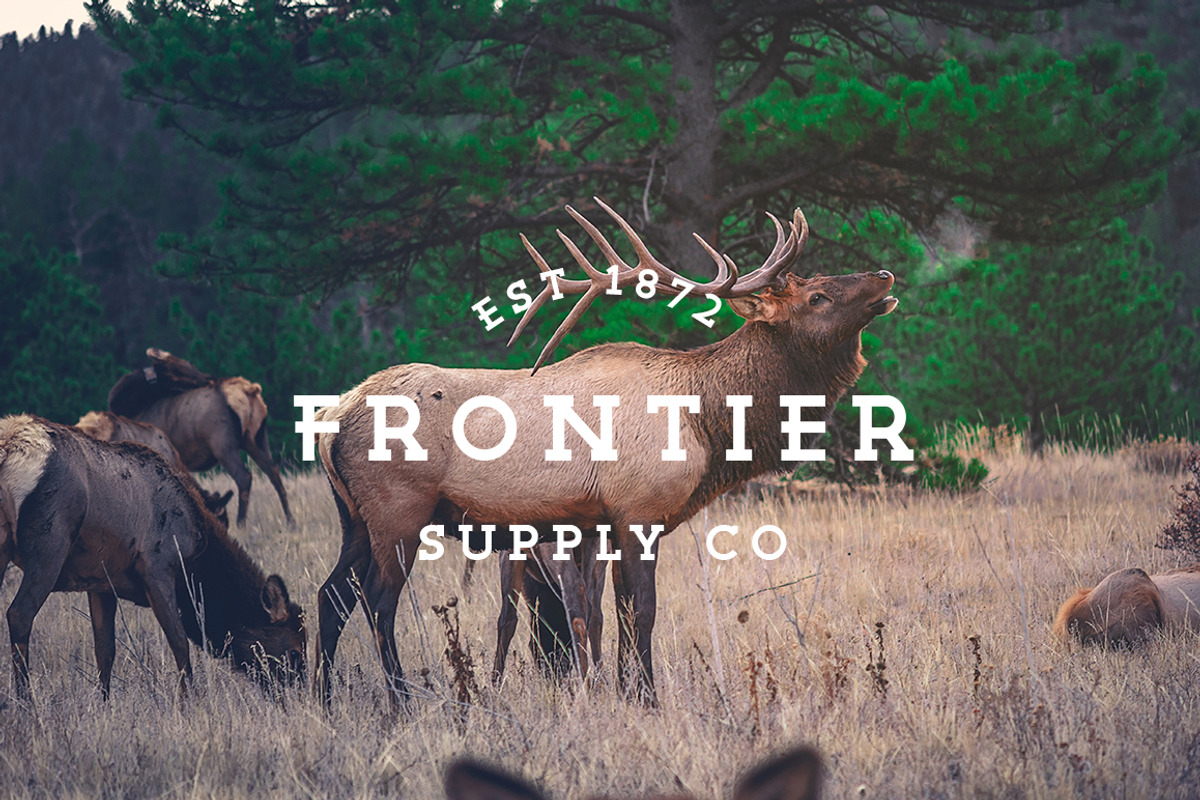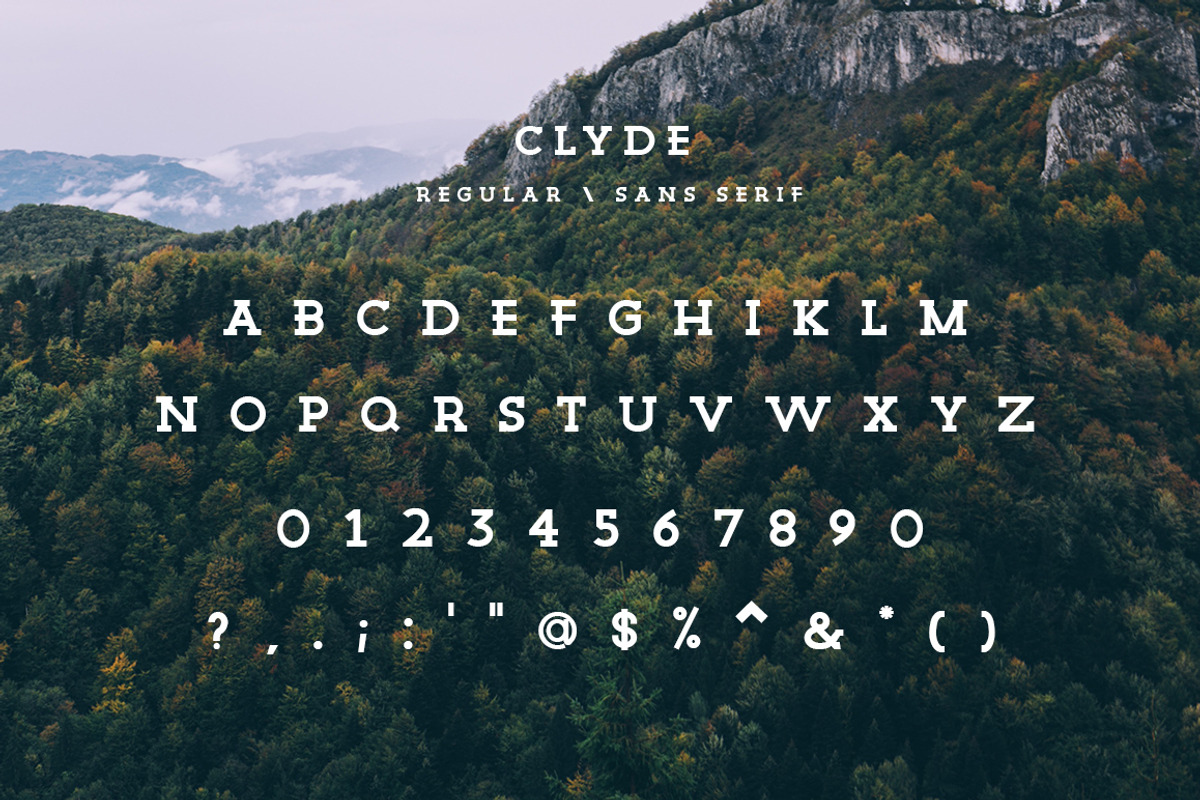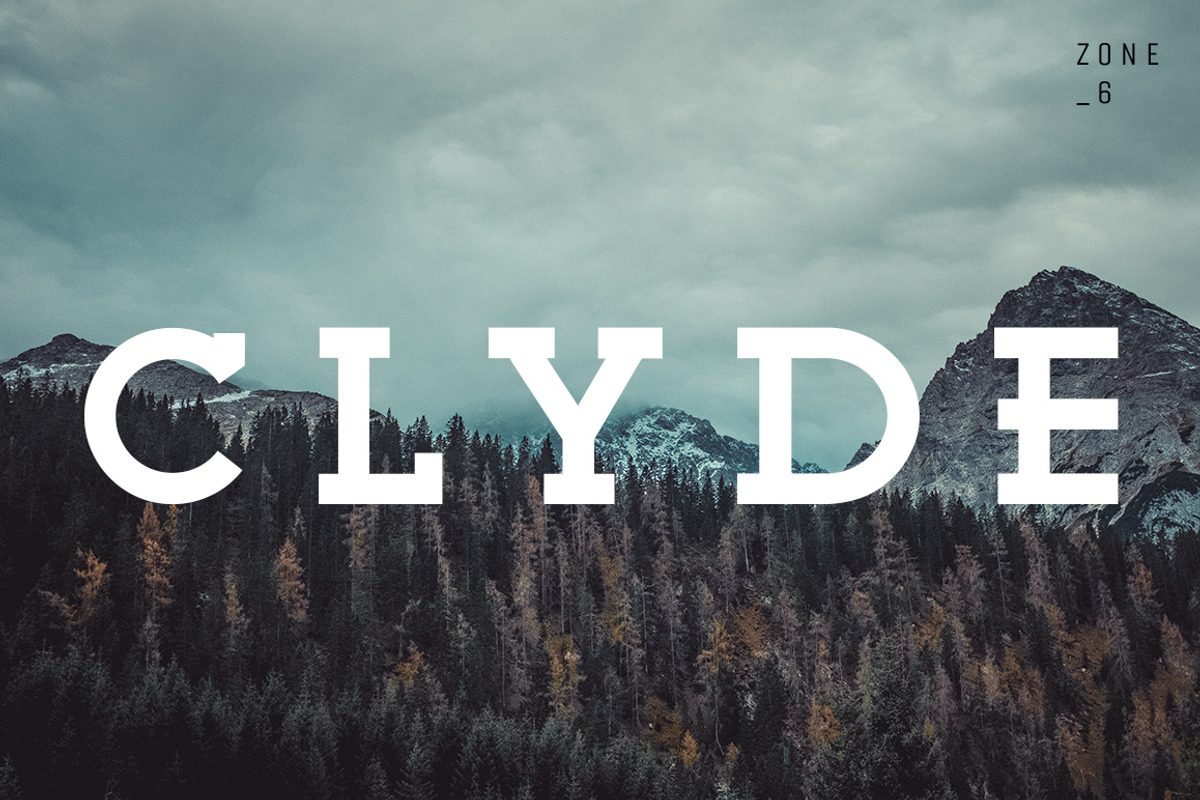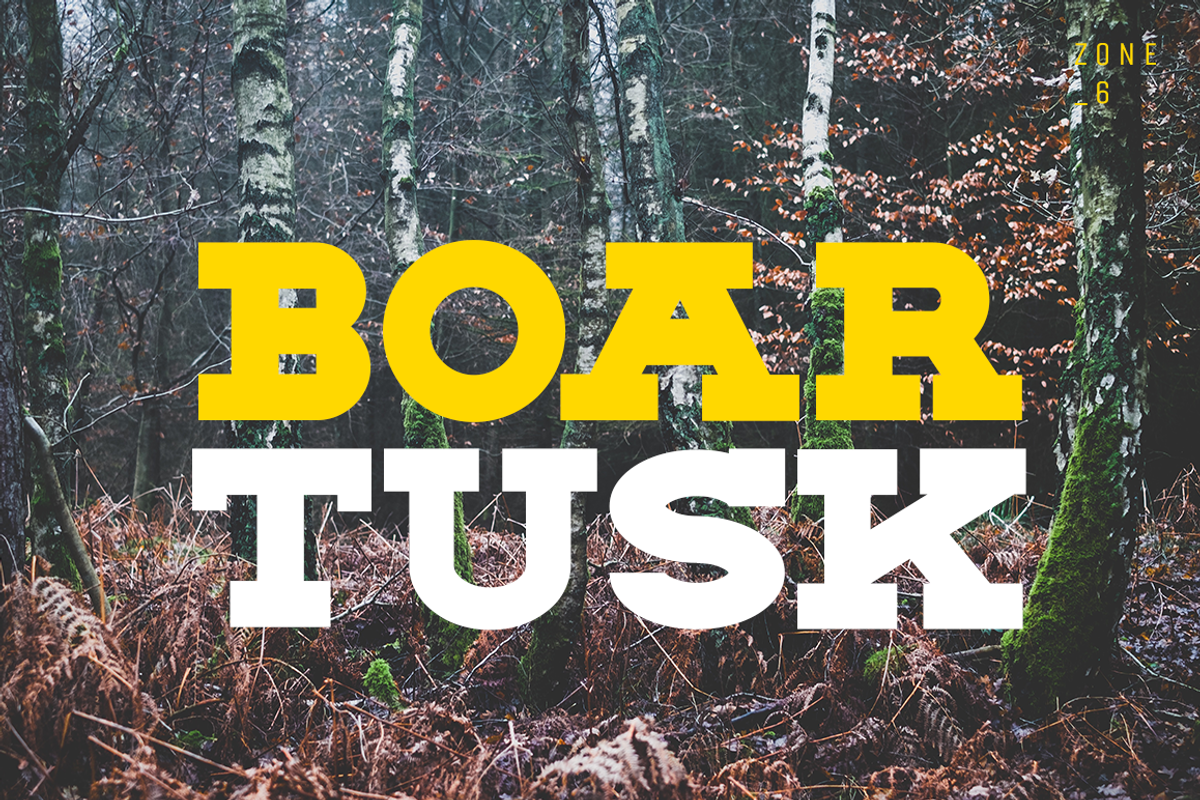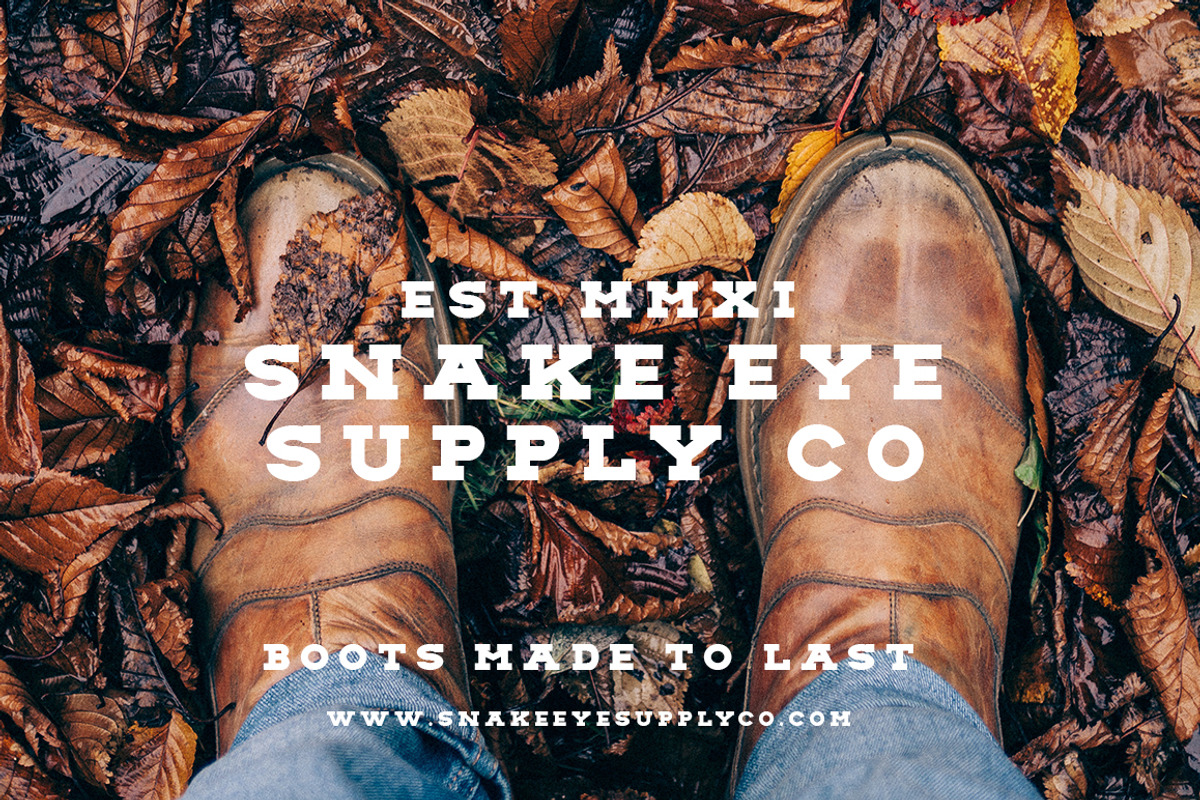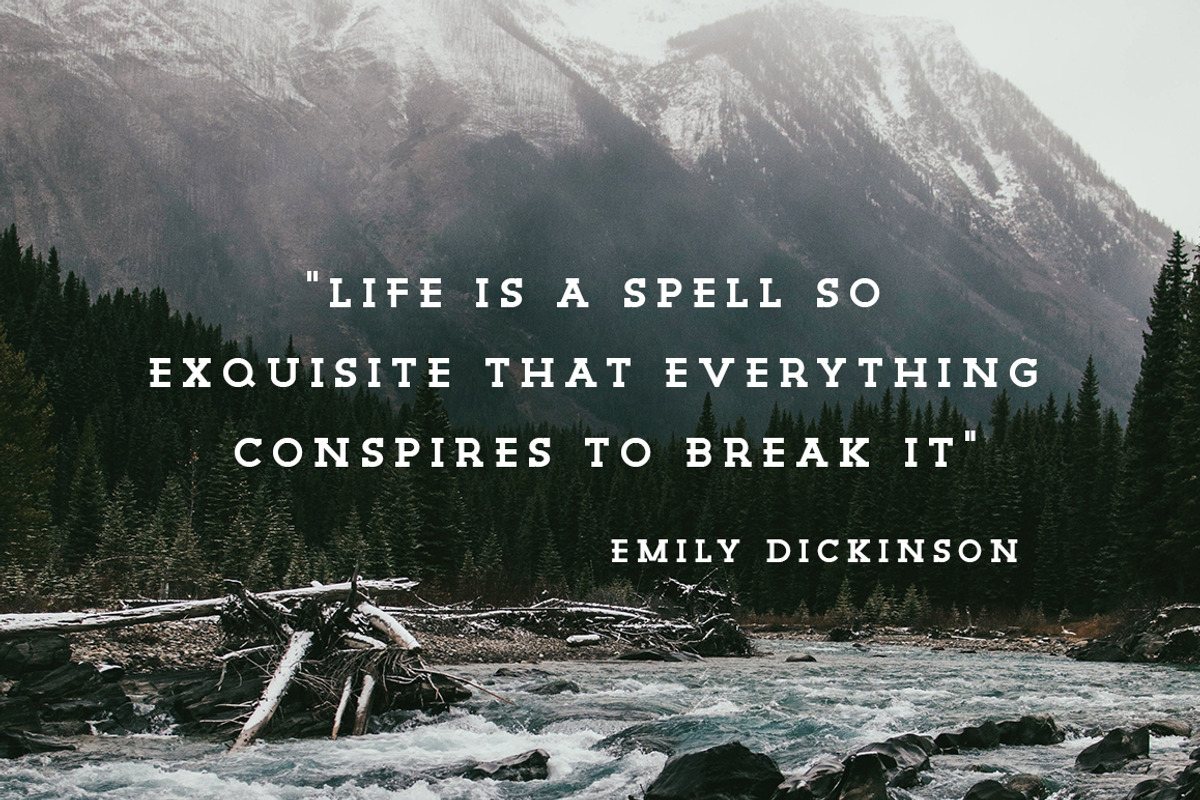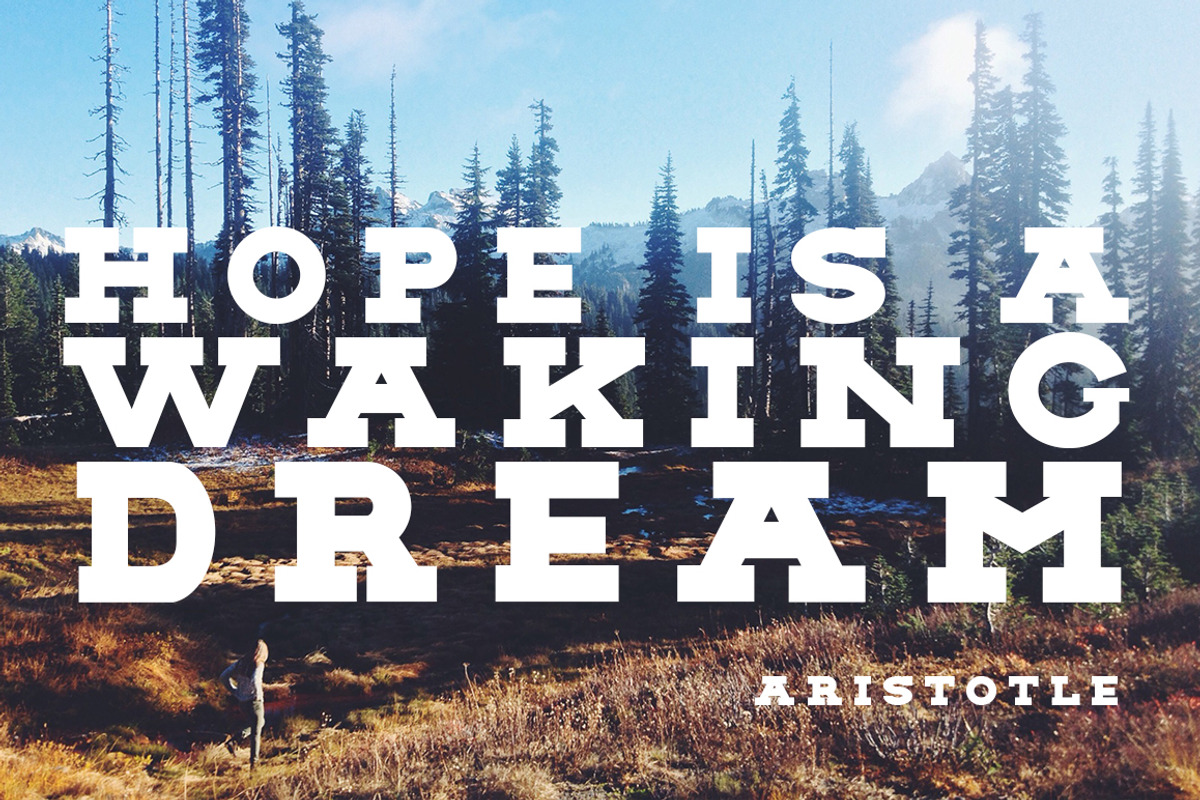
The Vintage Slab Font Collection
Within this font bundle you'll receive 2 font families. Boar Tusk is a bold & fearless slab serif collection, inspired by the wild west but even bigger. Clyde is a classic, bold and tenacious slab serif collection inspired by adventure.
Each font comes with its italic, rounded, and rough versions, so you’ll have plenty of fonts to create great projects with including logotypes, print, branding, and signage.
Numbers and punctuation included
Optimized kerning for aesthetic and highly readable texts
If you’re looking for a collection of fonts that will work together to create appealing vintage style projects then The Vintage Slab Font Collection is for you.
The Vintage Slab Font Collection by Zone 6 fits naturally into Branding, posters, packaging, typography.